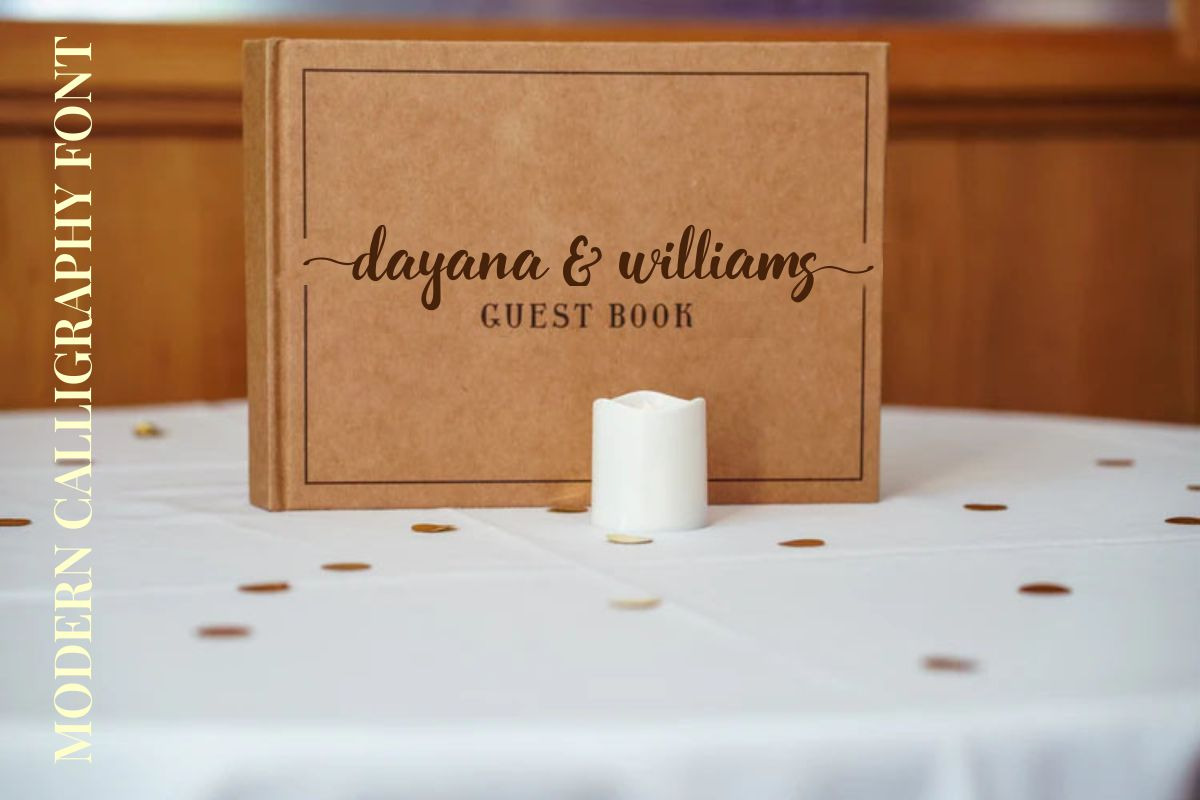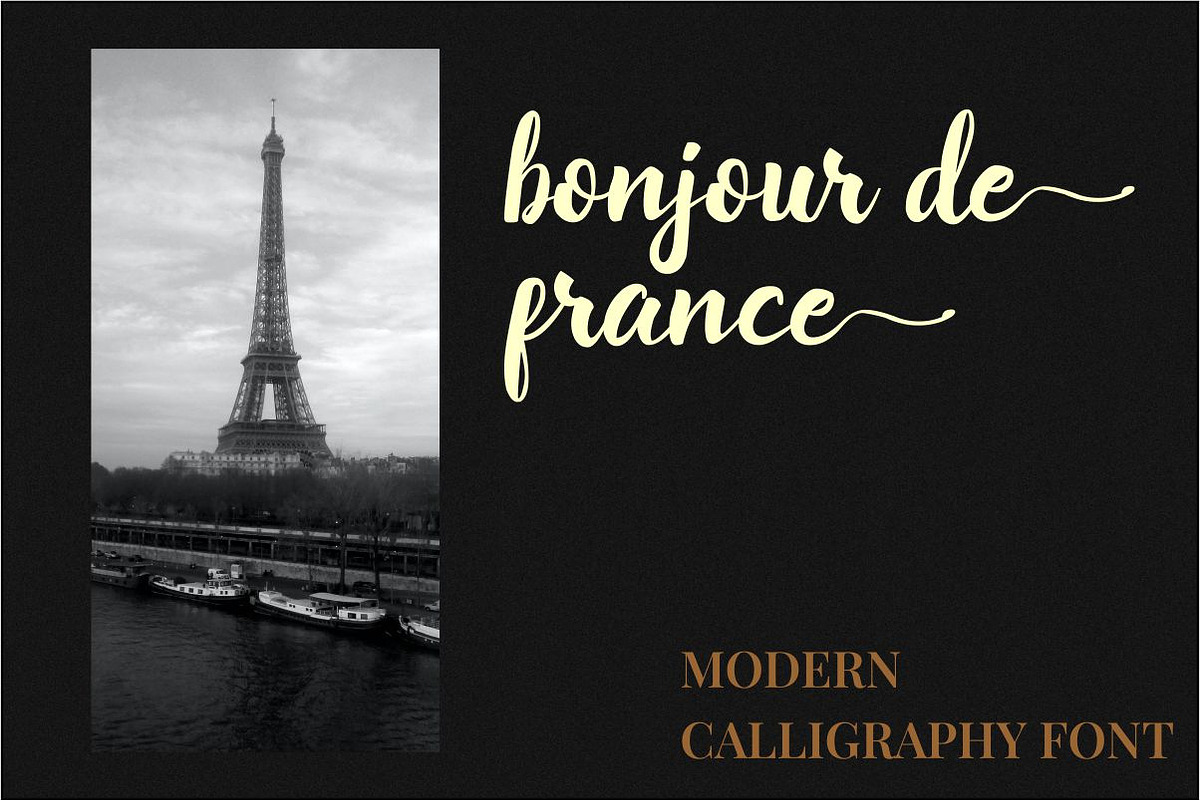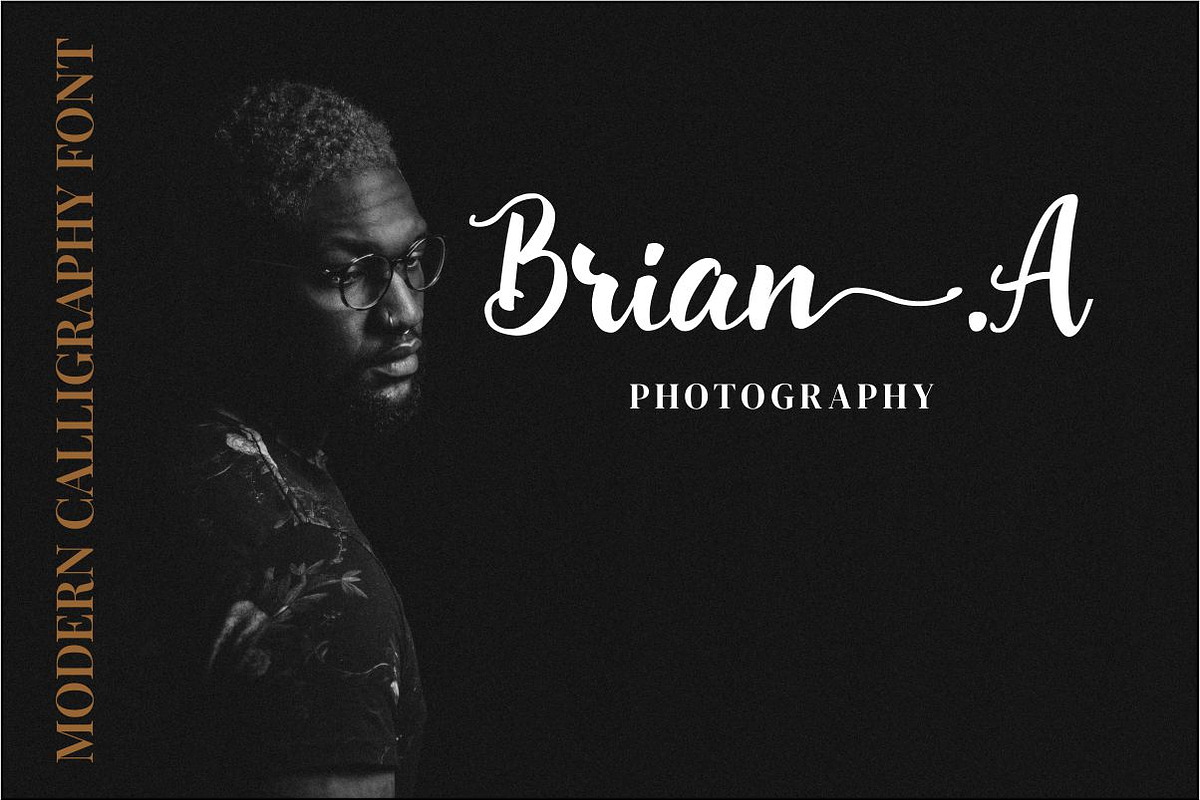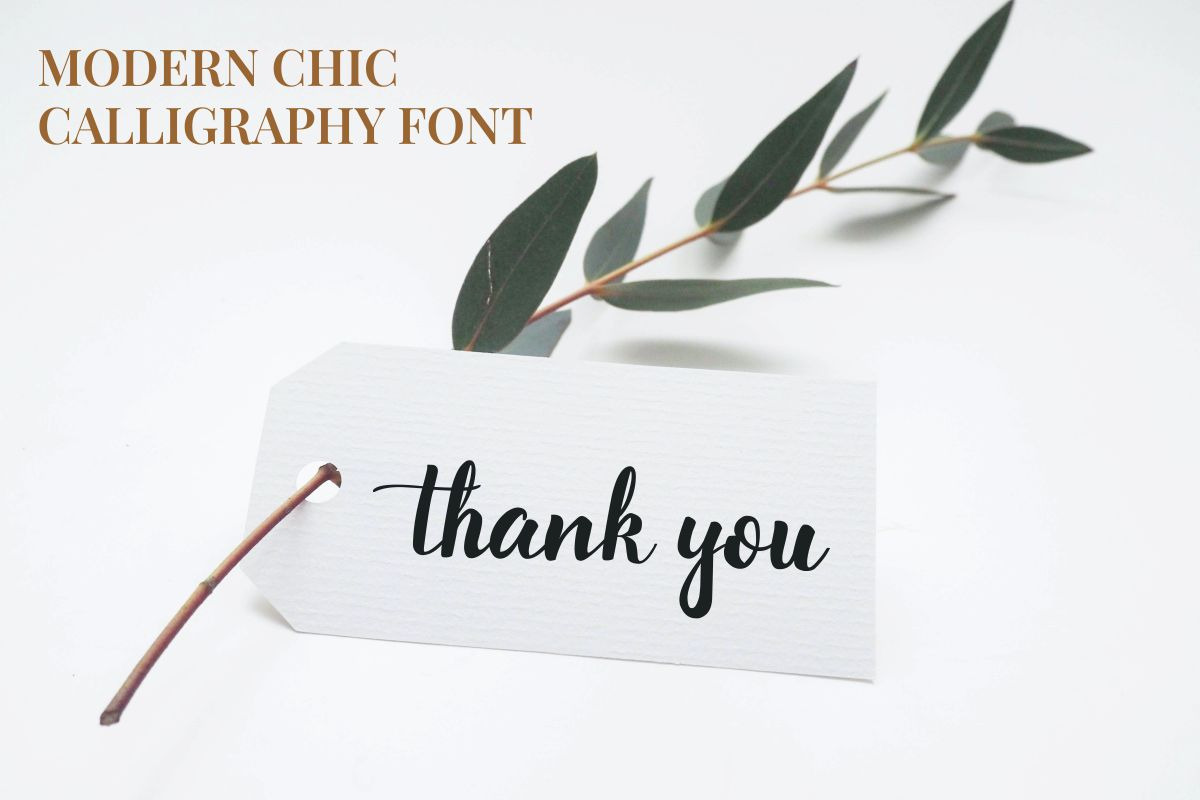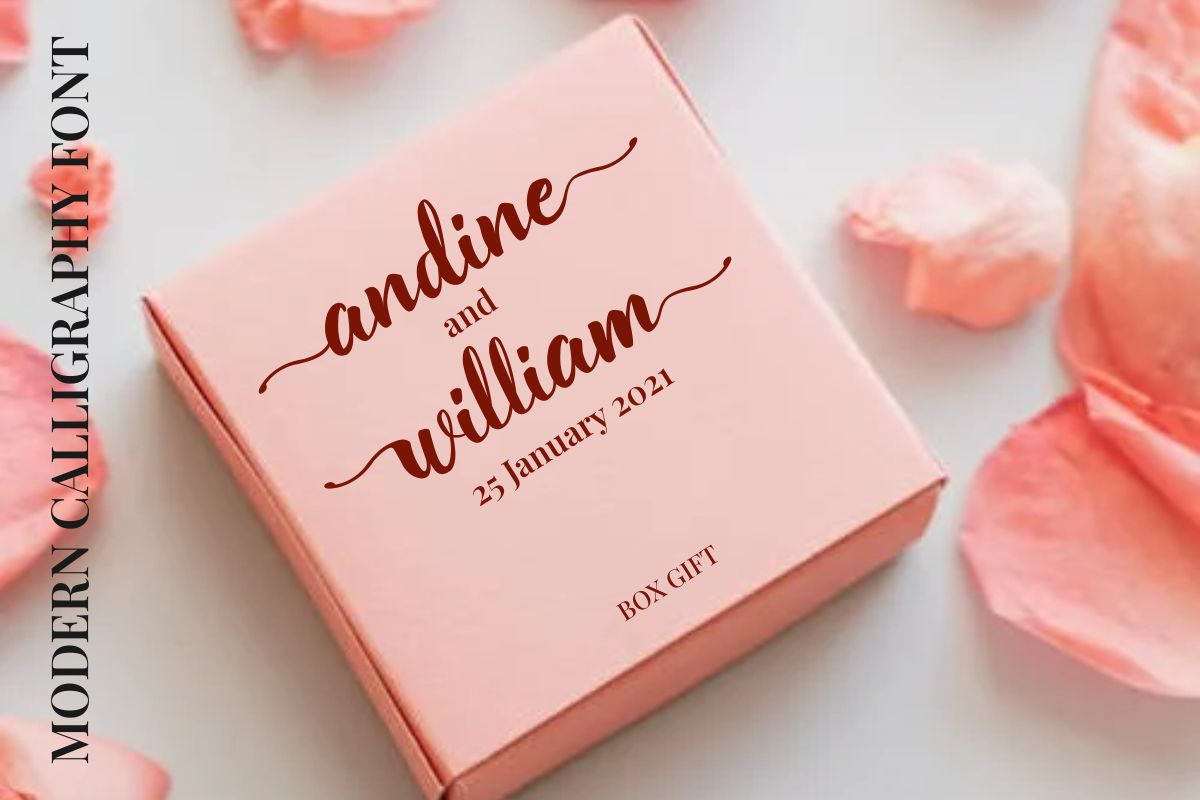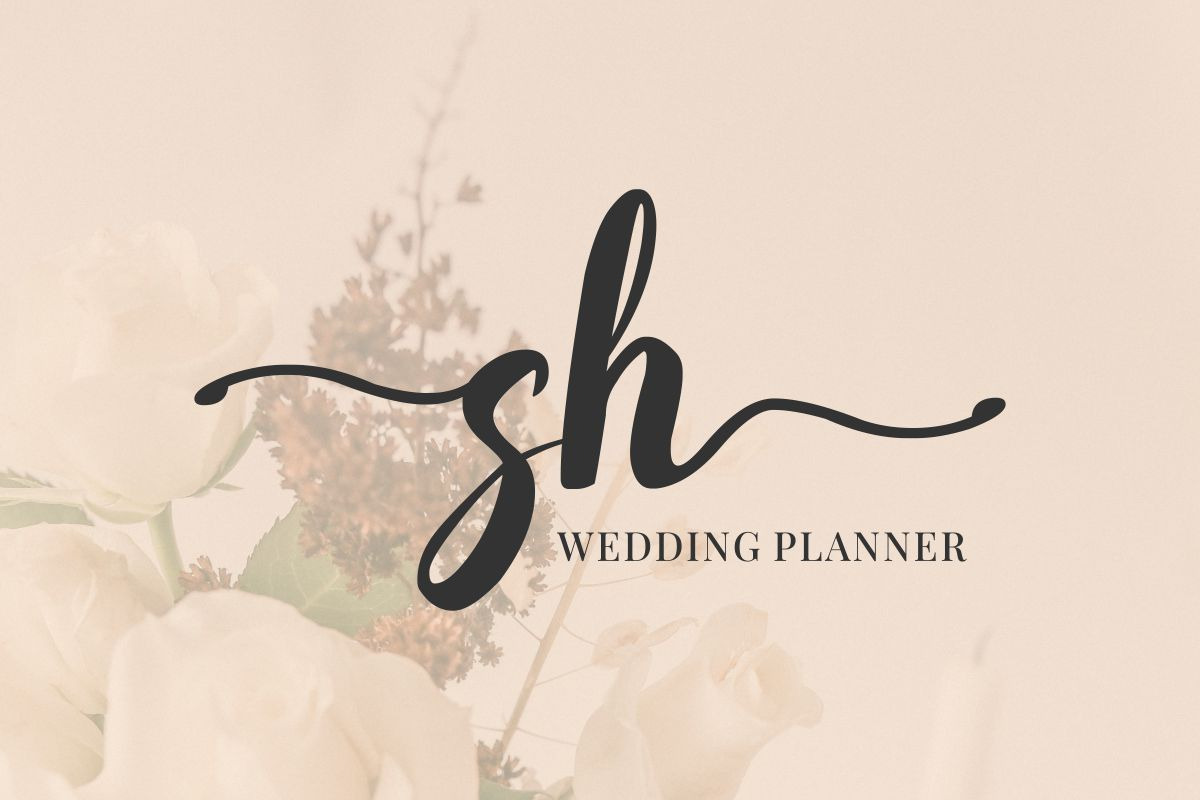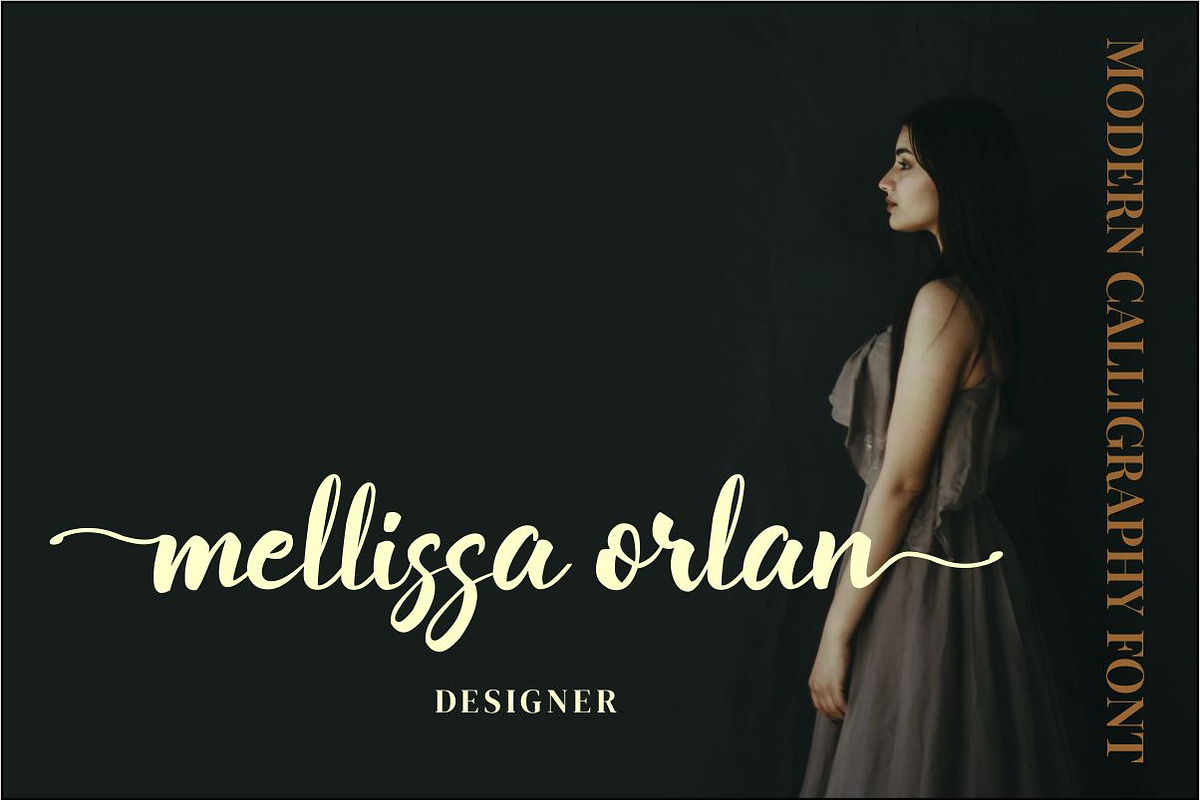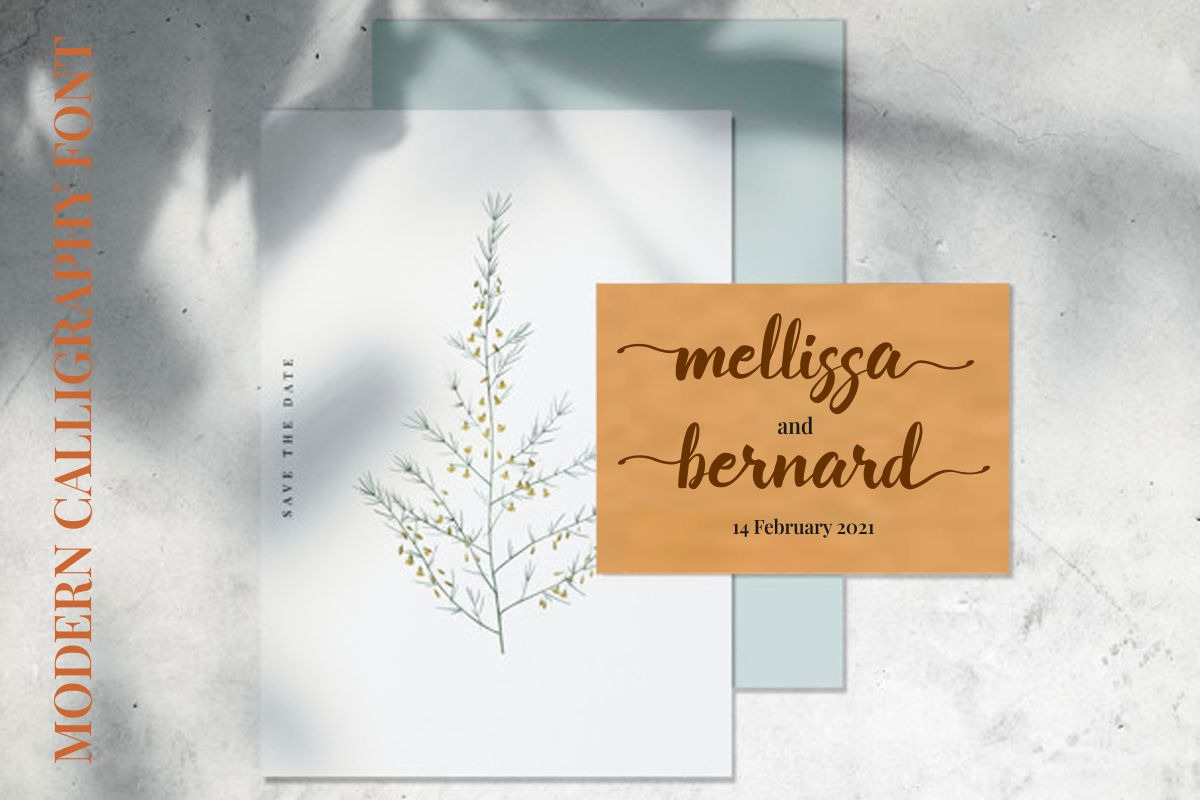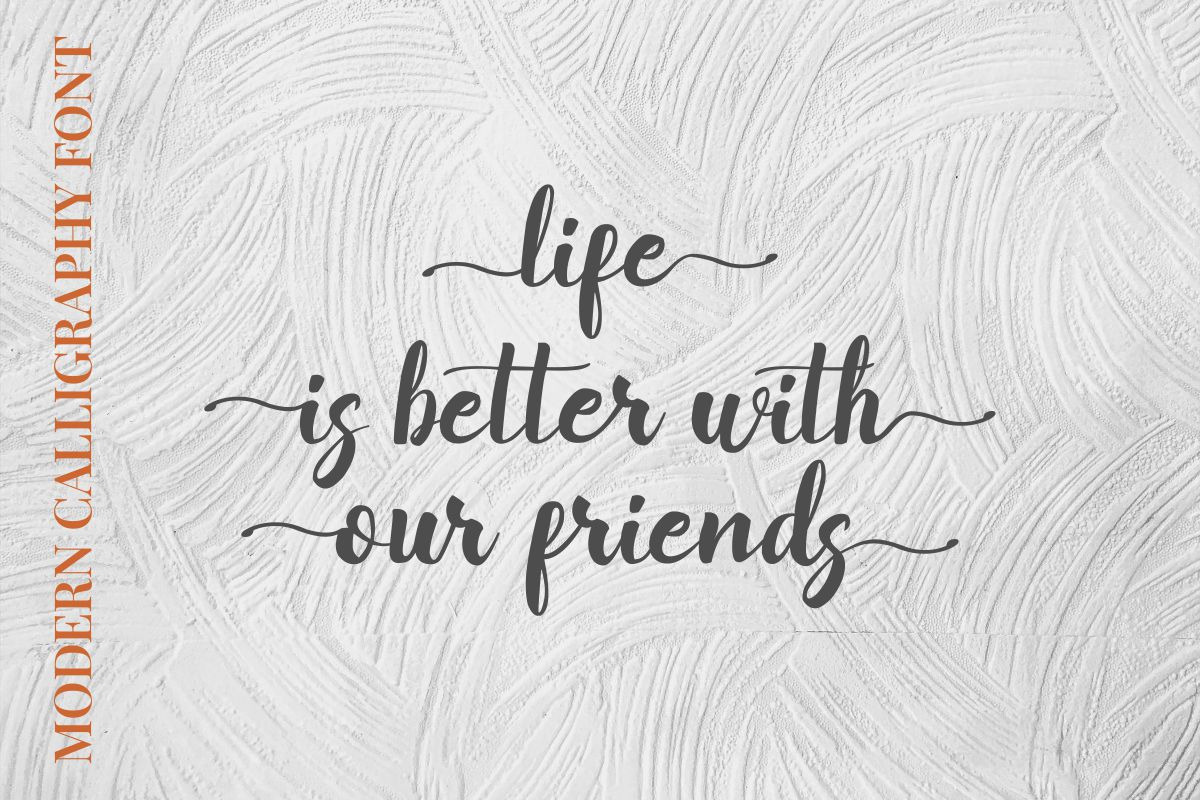
callissta // Modern Calligraphy.
Callista is a modern chic Calligraphy font with magical pressure. I hope this font perfect for creating signature logos and watermarks for a photography studio or wedding invitation, best for initial or branding logo signature.
Callissta includes the full set of beautifully hand-lettered uppercase and lowercase letters, numerals, a large range of punctuation, and ligatures. All lowercase letters include beginning and ending swashes, giving a realistic hand-lettered style. What you get, darling?